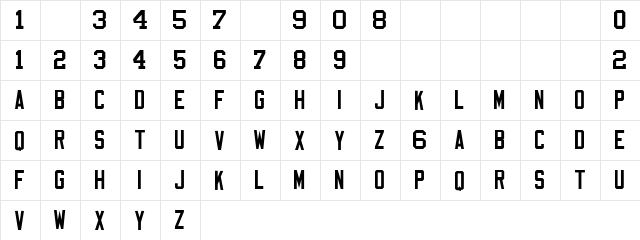
NFL Varsity Block C Regular
Design Context for NFL Varsity Block C Typeface
NFL Varsity Block C brings high-energy athletic personality to the page — its confident, muscular forms are built for impact.
Built for sports team identities, athletic apparel, event posters, and high-energy promotional material.
Pro Tip: NFL Varsity Block C thrives on contrast — try it large, bold, and tight against a clean background for maximum visual impact.